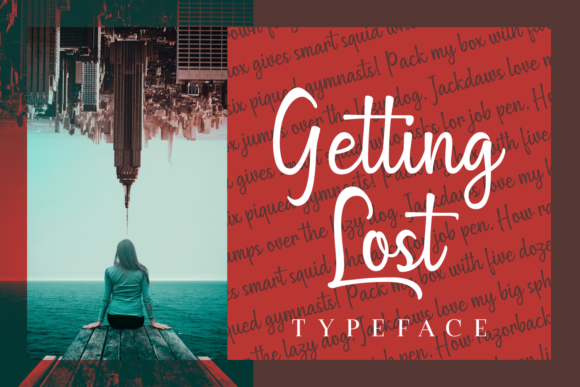
In a world saturated with conventional fonts, allow us to introduce you to the one that stands apart – the Getting Lost Font. A script font that redefines the boundaries of creativity and expression, it's a masterpiece crafted by the esteemed Situjuh, a name synonymous with typographic brilliance.
The Getting Lost Font is a visual symphony, an enchanting dance of characters that weaves a spell of elegance and sophistication. Its clean and refined design exudes a sense of luxury, while its striking presence demands attention. Whether you're a seasoned designer or a creative enthusiast, this font is your gateway to a world of limitless possibilities.
With its remarkable readability, the Getting Lost Font transcends size limitations. From petite captions to majestic headlines, its characters retain their integrity and clarity, captivating your audience with every stroke. Let your words take center stage, enhanced by the font's inherent charm and legibility.
The Getting Lost Font is not merely a font; it's an experience. Its flowing lines and graceful curves evoke a sense of movement and fluidity, drawing your audience into a captivating narrative. It's a font that speaks volumes, even in silence, evoking emotions and sparking imaginations.
Step into a realm of creativity where boundaries dissolve and possibilities ignite. The Getting Lost Font is your passport to a world of visual wonders, where your designs take flight and your words dance with elegance. Unleash your inner artist and let the Getting Lost Font guide you through a journey of self-expression and artistic triumph.